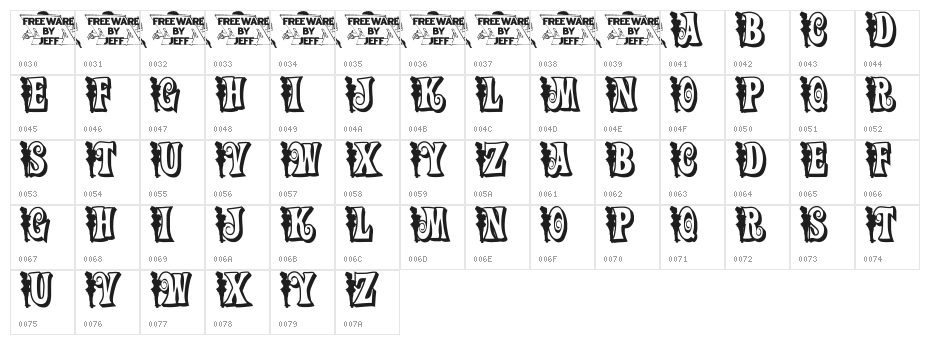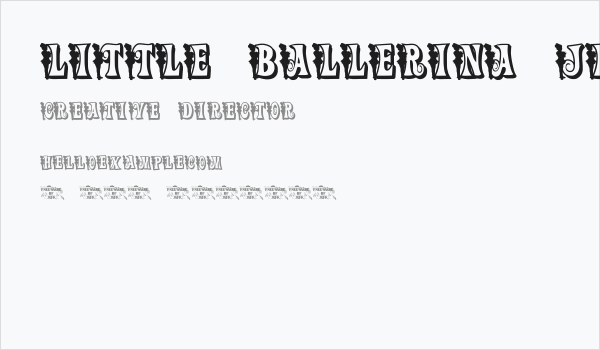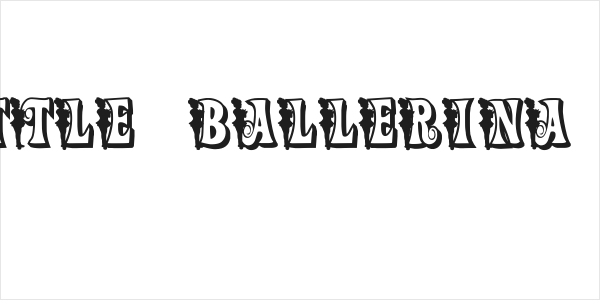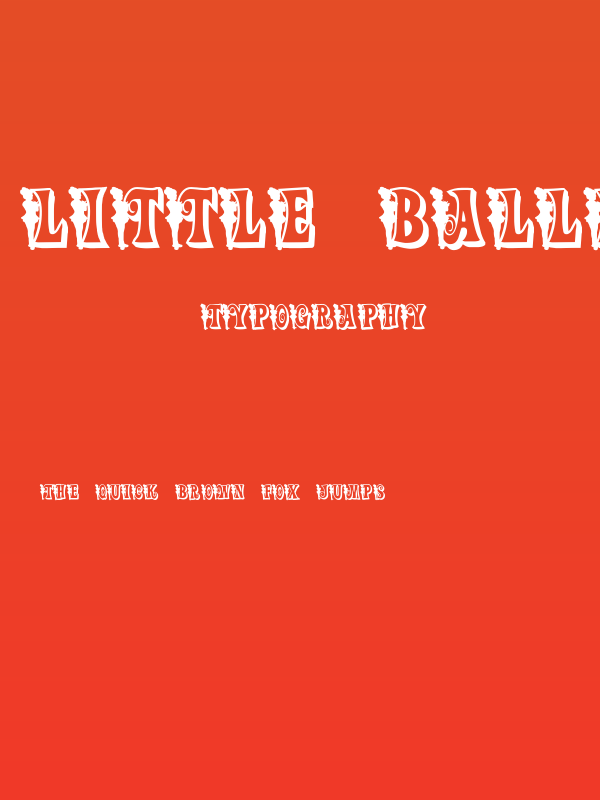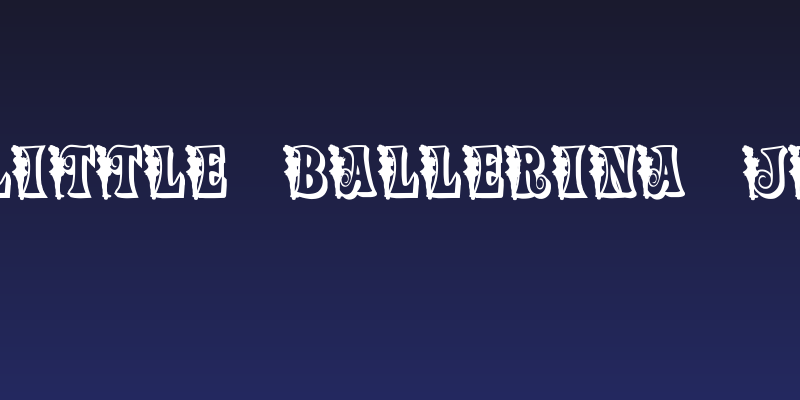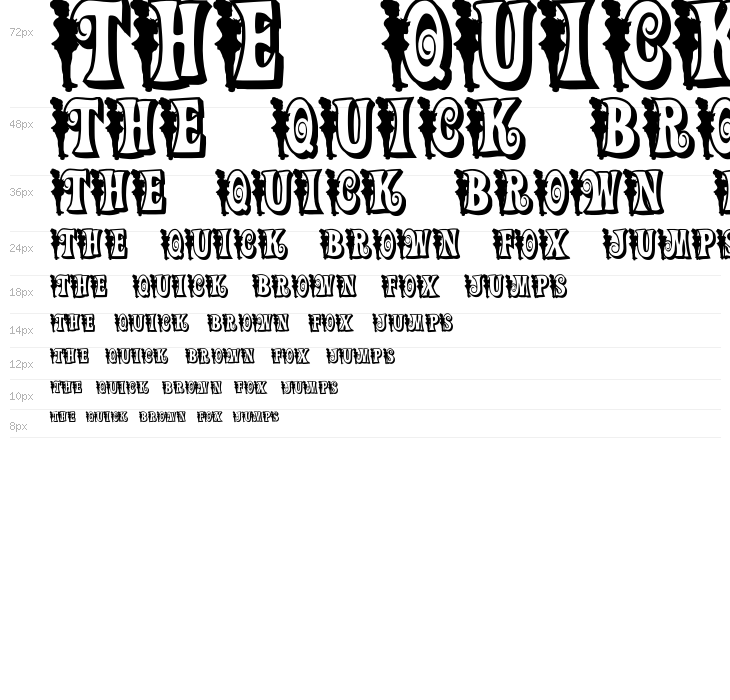
Little Ballerina JL Font
Little Ballerina JL Description
This font features a unique and whimsical design, incorporating silhouettes of ballerinas into the structure of each letter. The uppercase letters are bold and decorative, with intricate details that give them a playful yet elegant appearance. The font has a strong visual impact, making it suitable for creative and artistic projects. The characters are well-defined, with a consistent style that maintains readability despite the elaborate design. The use of ballerina motifs adds a thematic element, making it ideal for dance-related or feminine-themed applications.
| Proposed Projects | Ideal for dance studio branding, event invitations, children's book covers, and artistic posters. |